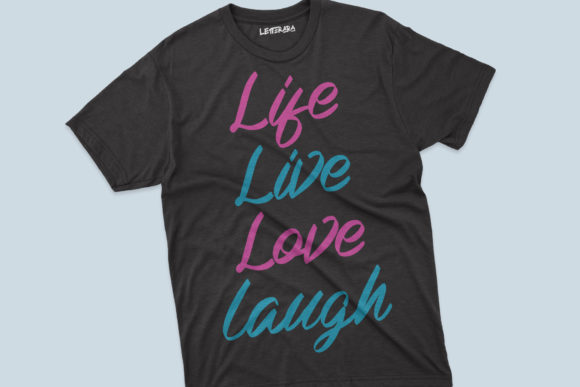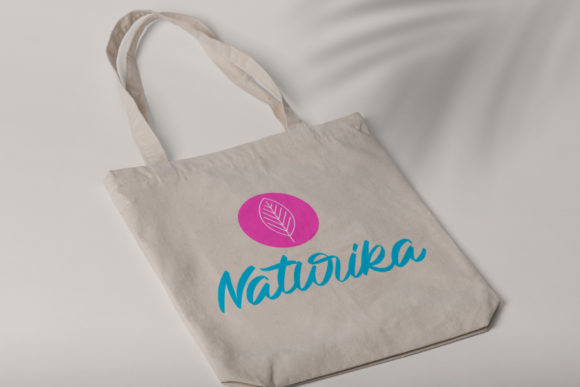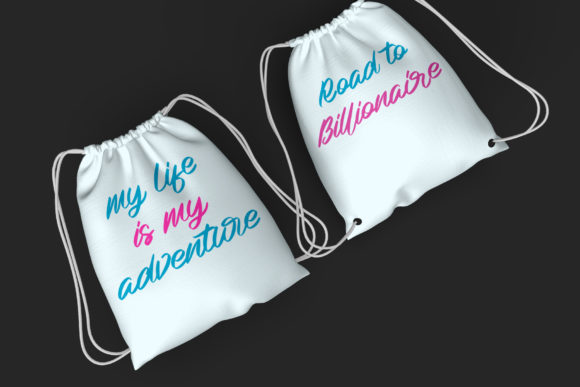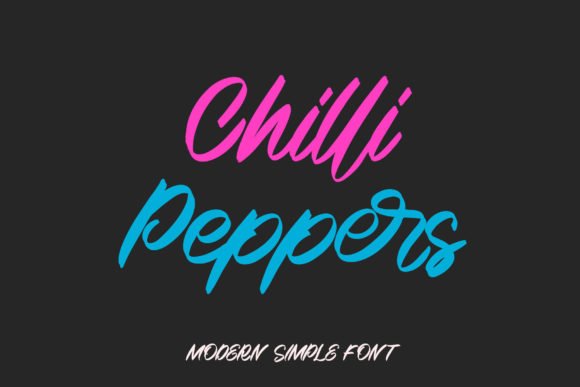
Introduction to Chilli Peppers Font
Chilli Peppers is a delicate and elegant handwritten font.
Its distinct and well balanced letters make this font a masterpiece Chilli Peppers is PUA encoded which means you can access all of the glyphs and swashes with ease.